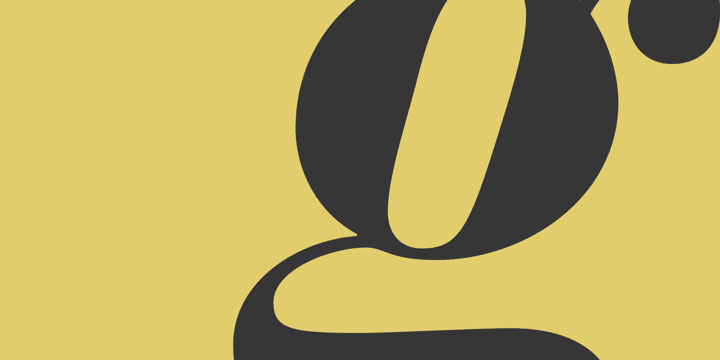
Giambattista Bodoni (1740–1813) was called the King of Printers and the Bodoni font owes its creation in 1767 to his masterful cutting techniques. Predecessors in a similar style were the typefaces of Pierre Simon Fournier (1712–1768) and the Didot family (1689–1836).
The Bodoni font distinguishes itself through the strength of its characters and embodies the rational thinking of the Enlightenment. The new typefaces displaced the Old Face and Transitional styles and was the most popular typeface until the mid-19th century. Bodoni’s influence on typography was dominant until the end of the 19th century and, even today, inspires new creations.
Working with this font requires care, as the strong emphasis of the vertical strokes and the marked contrast between the fine and thick lines lessens Bodoni’s legibility, and the font is therefore better in larger print with generous spacing.
Bauer Bodoni appeared in 1926 with the Bauer font foundry. It was designed by typeface designer and book binder, Heinrich Jost (1889–1949), who was the artistic director of the foundry from 1922 until 1948. The forms are closely related to those of the original font and they are more delicate and elegant than many other Bodoni interpretations.